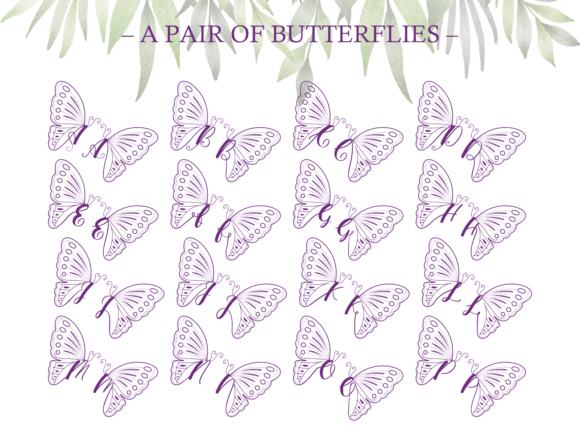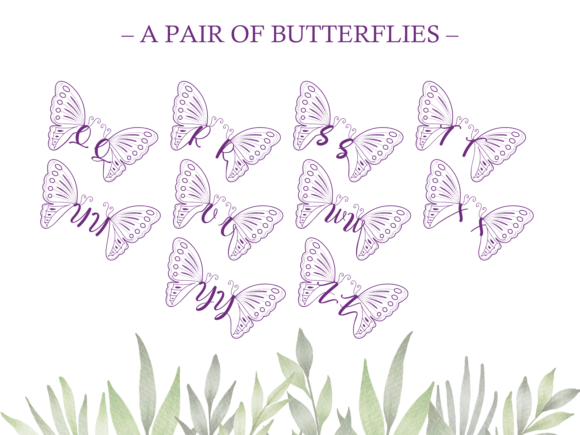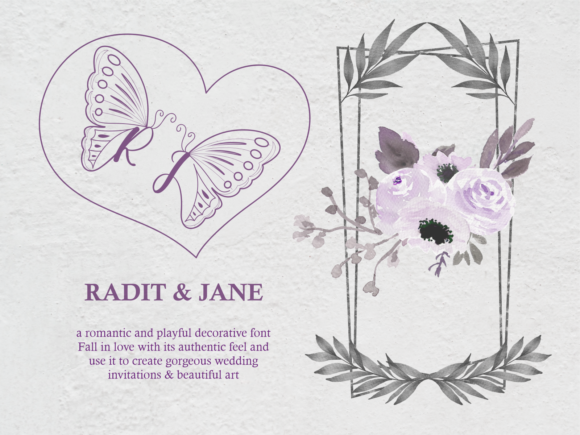
Introduction to A Pair of Butterflies Font
A Pair of Butterflies is an incredibly unique and angelic decorative font, featuring dainty butterfly as ornaments.
Fall in love with its incredibly versatile style and use it to create gorgeous wedding invitations, beautiful stationary art, eye-catching social media posts, and much more .
Key Features of A Pair of Butterflies Font